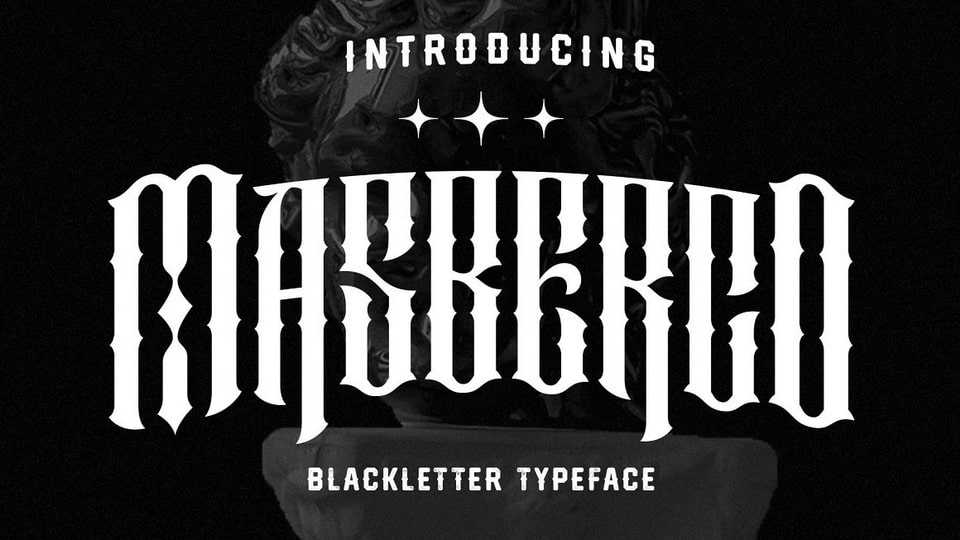
Download Masberco font, a dark blackletter style seamlessly merging street art and gothic typography. Crafted with meticulous letter spacing, it radiates an elegant yet fierce typographic presence.